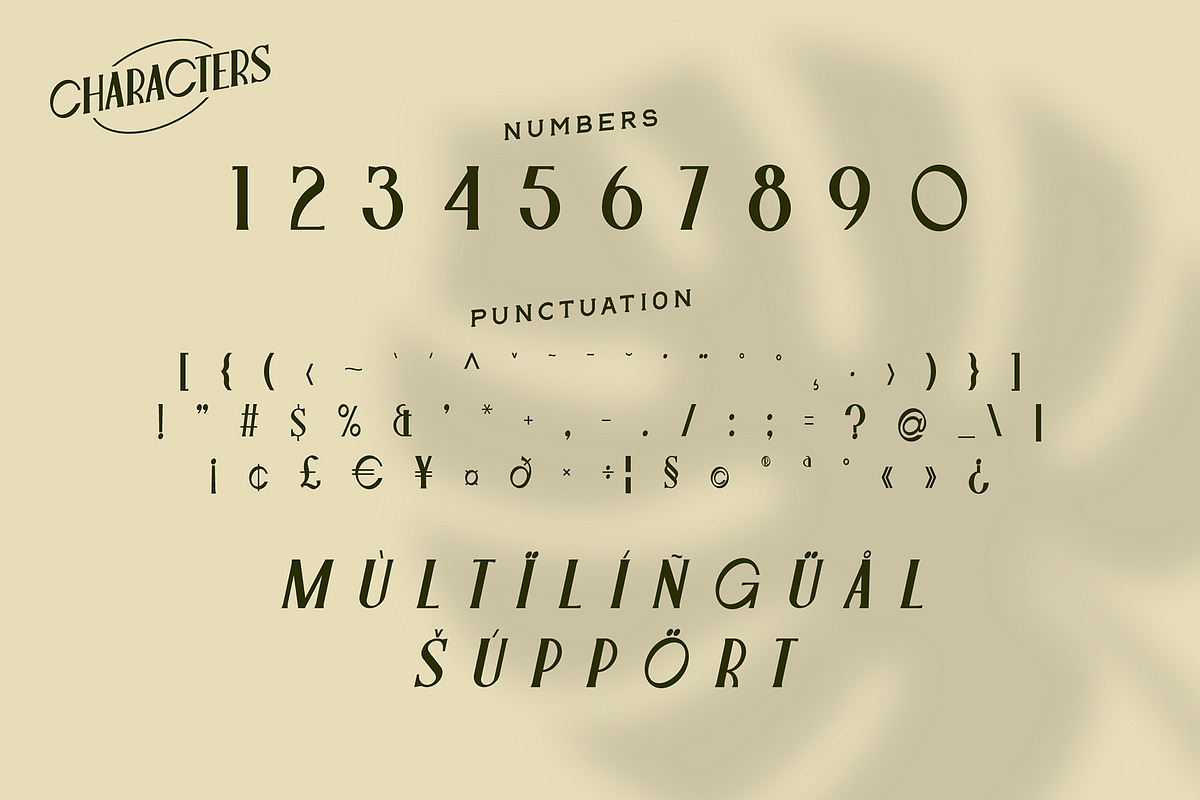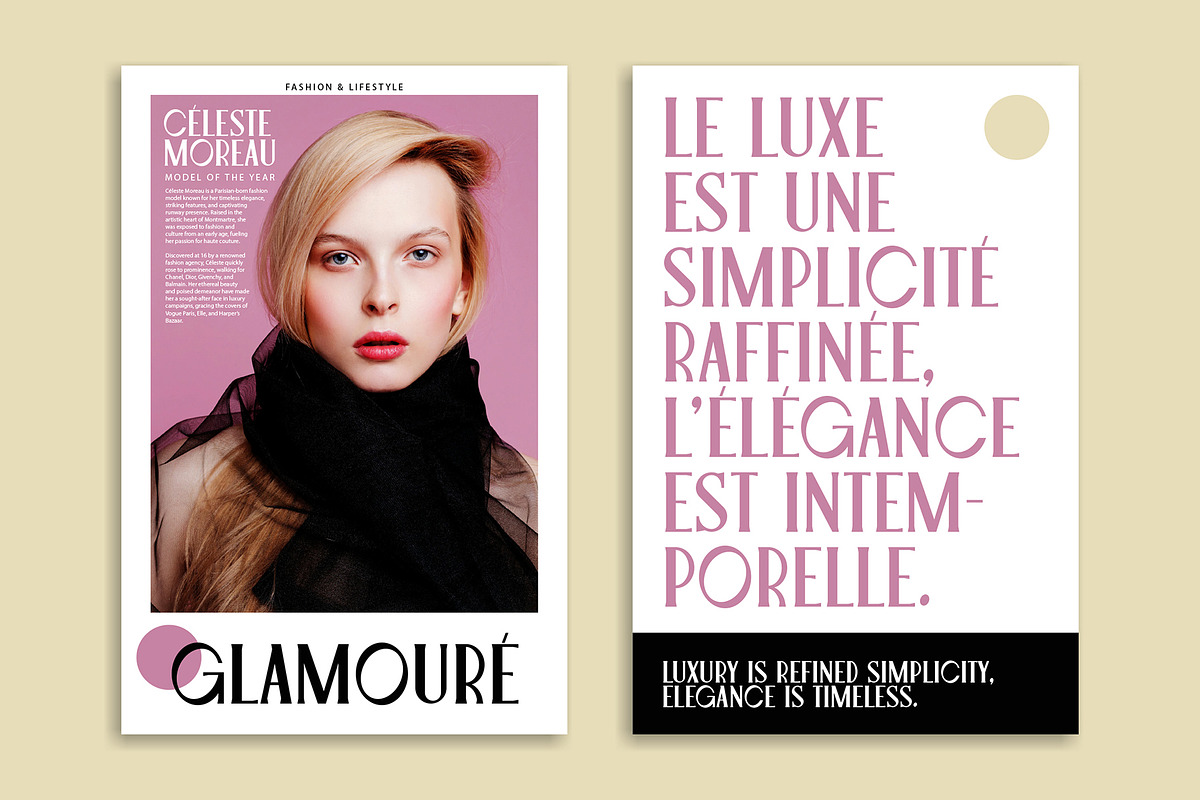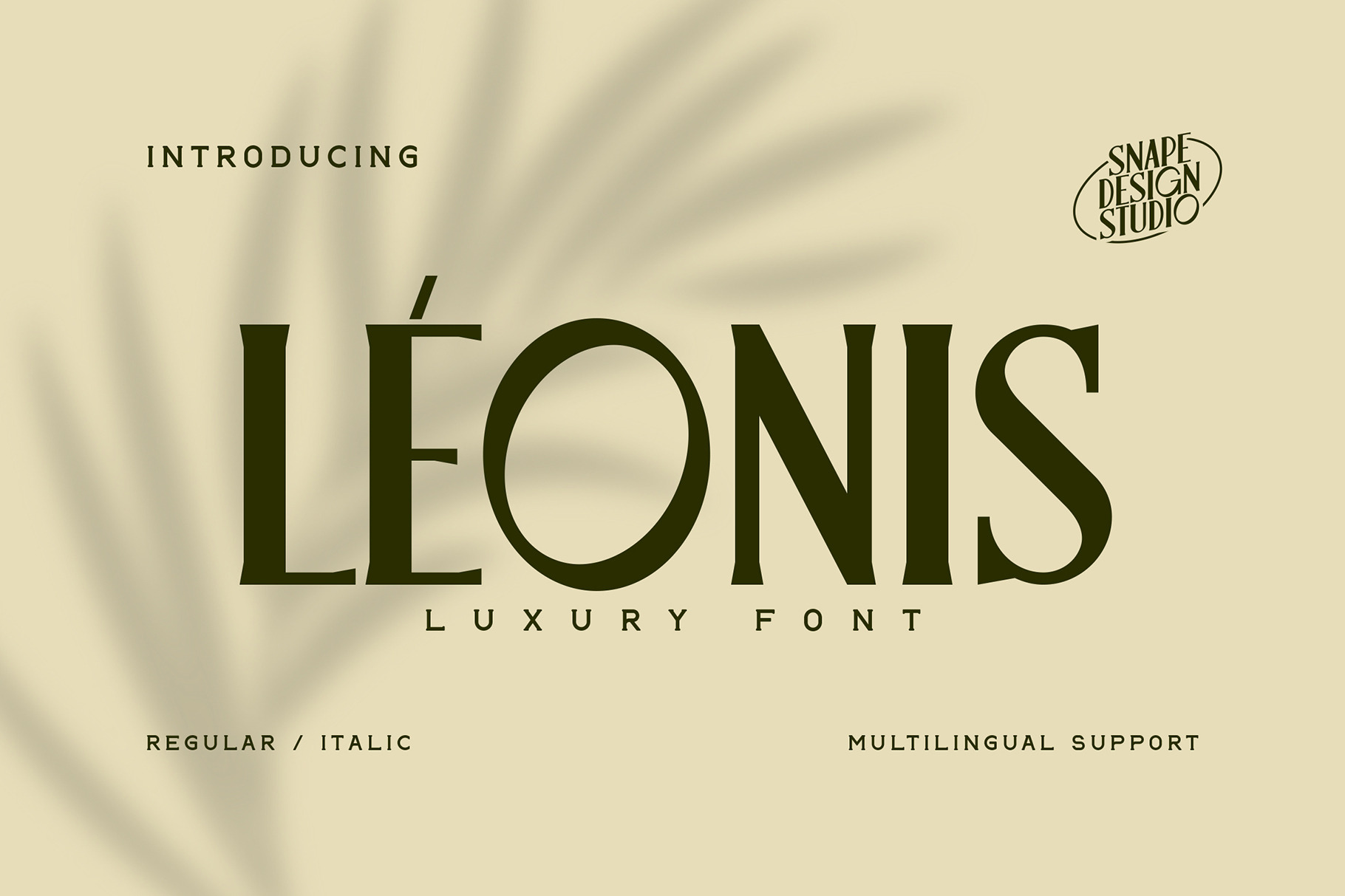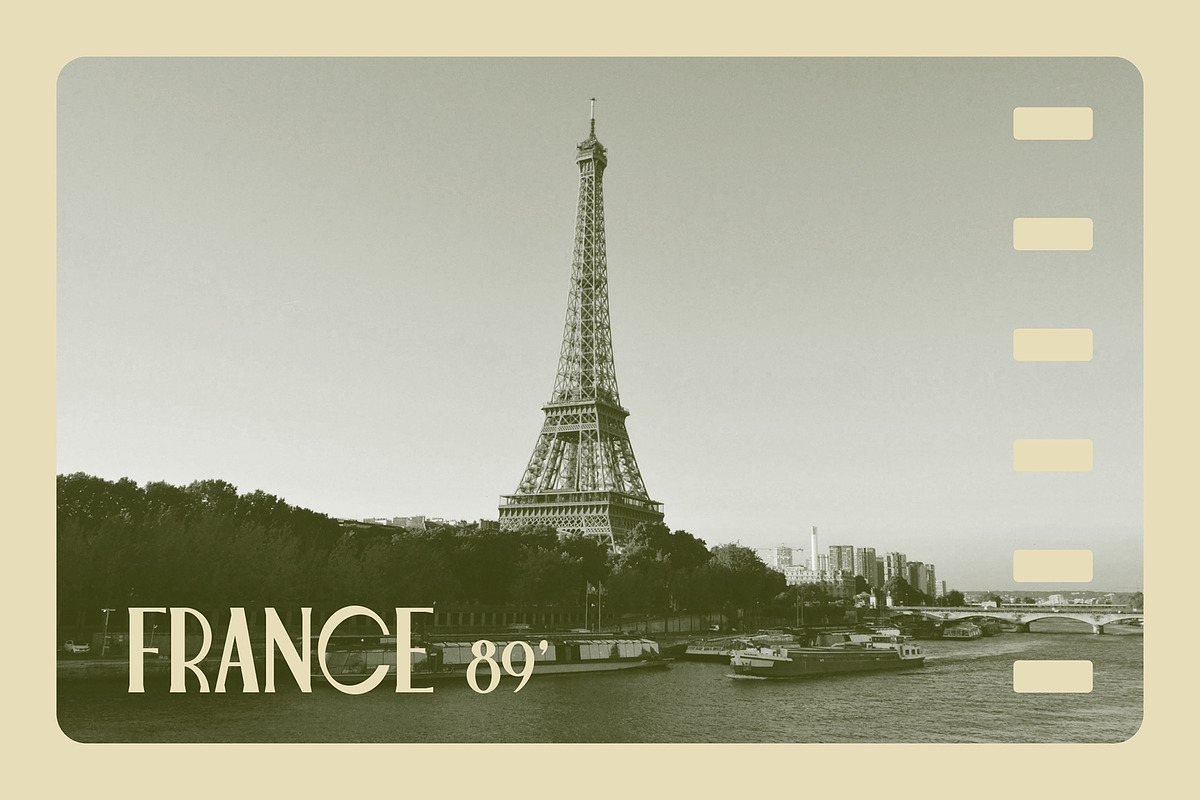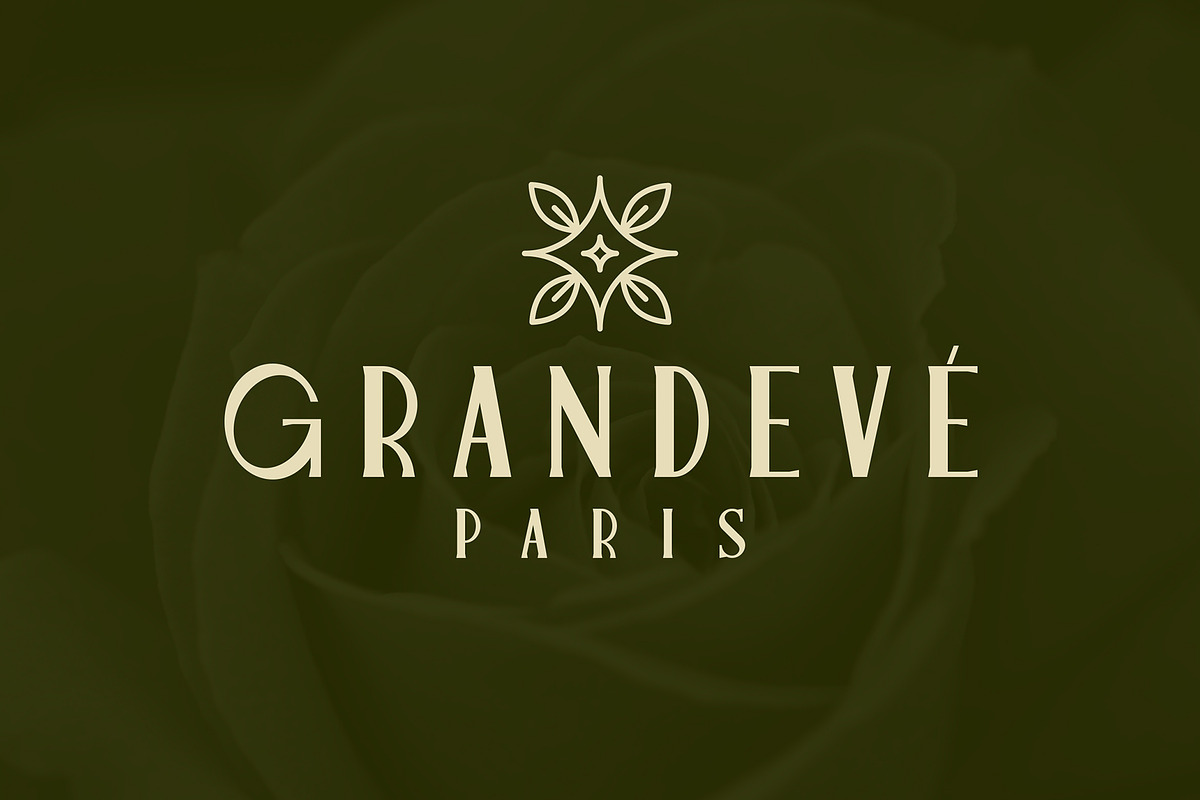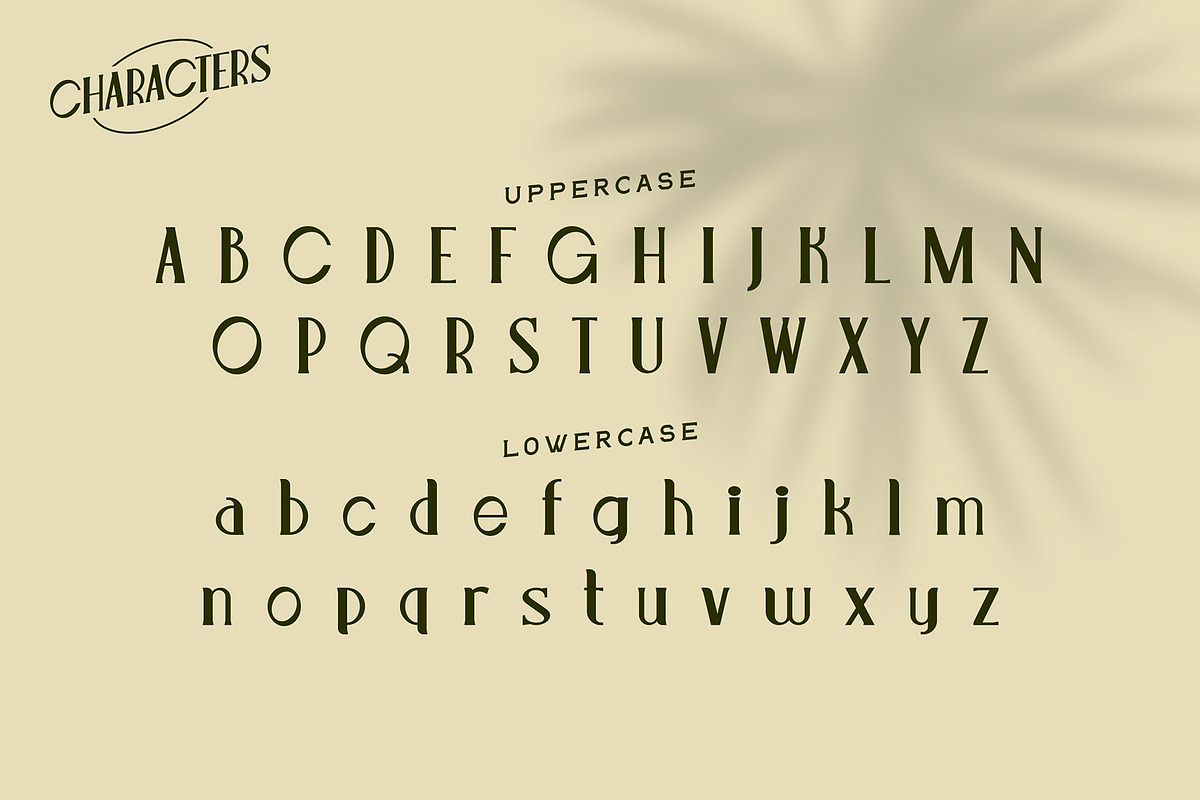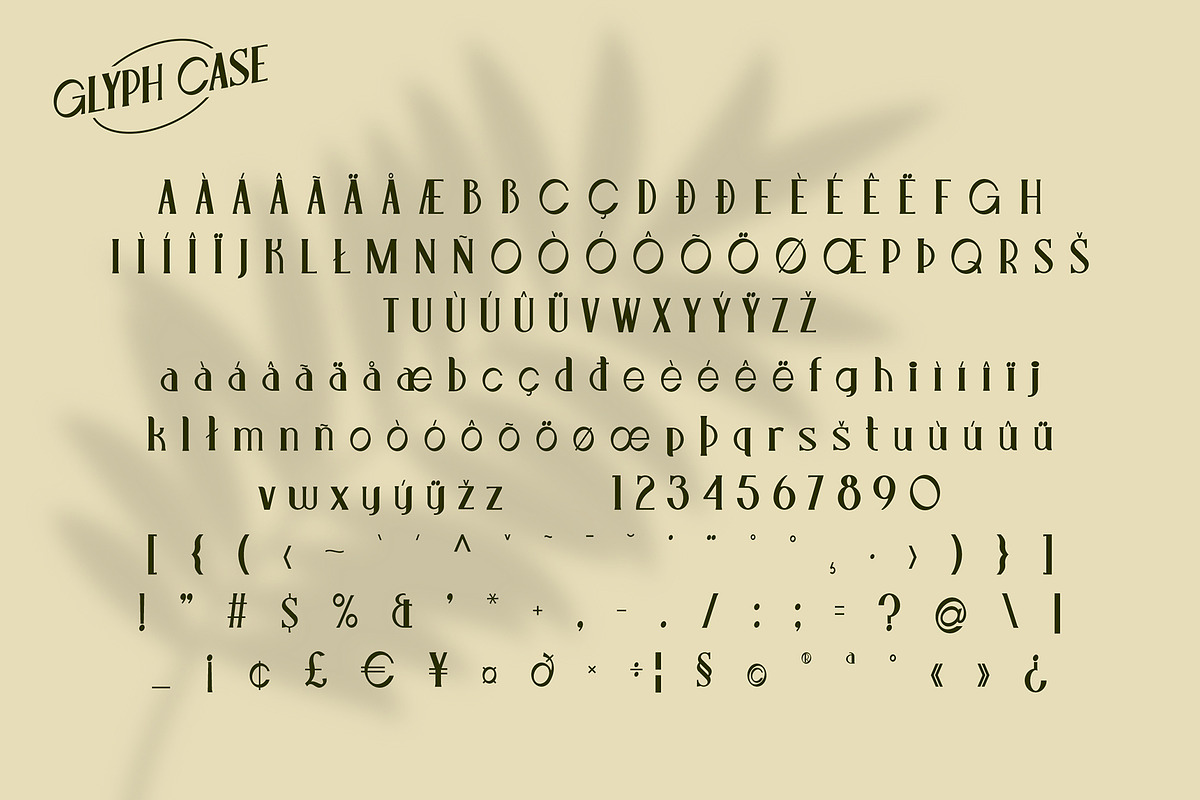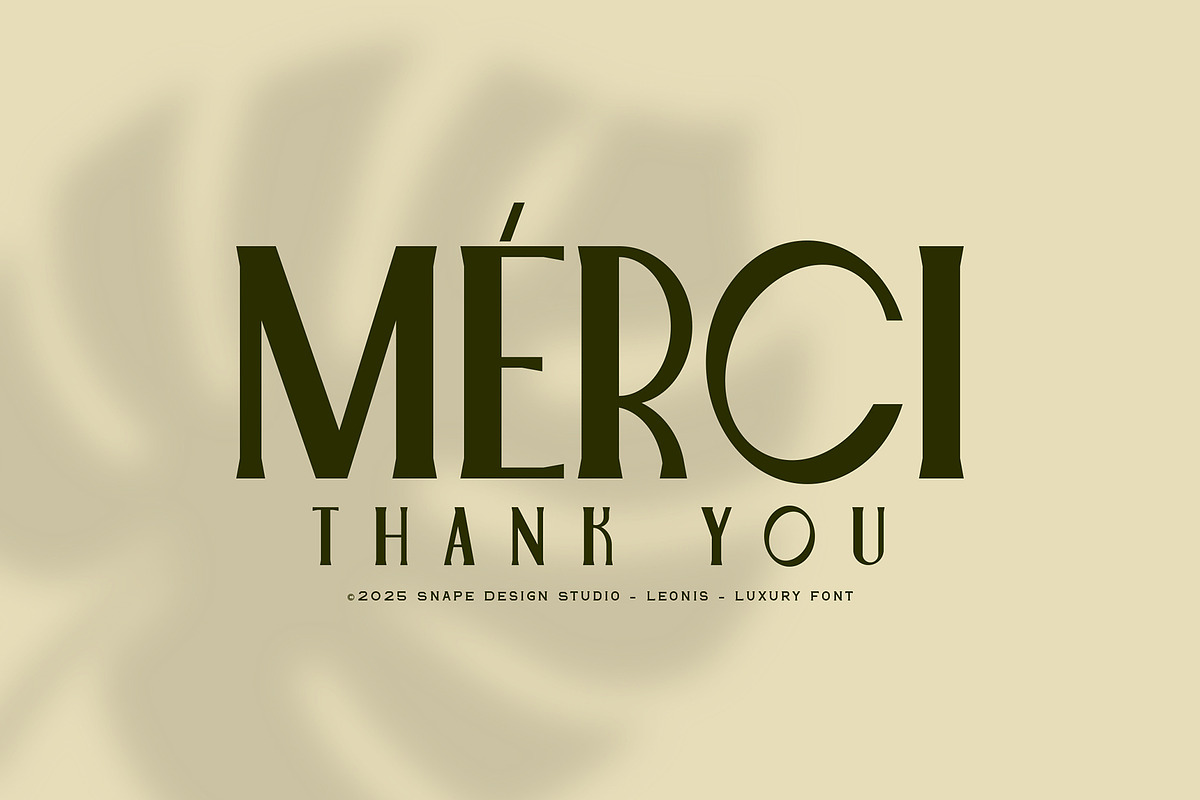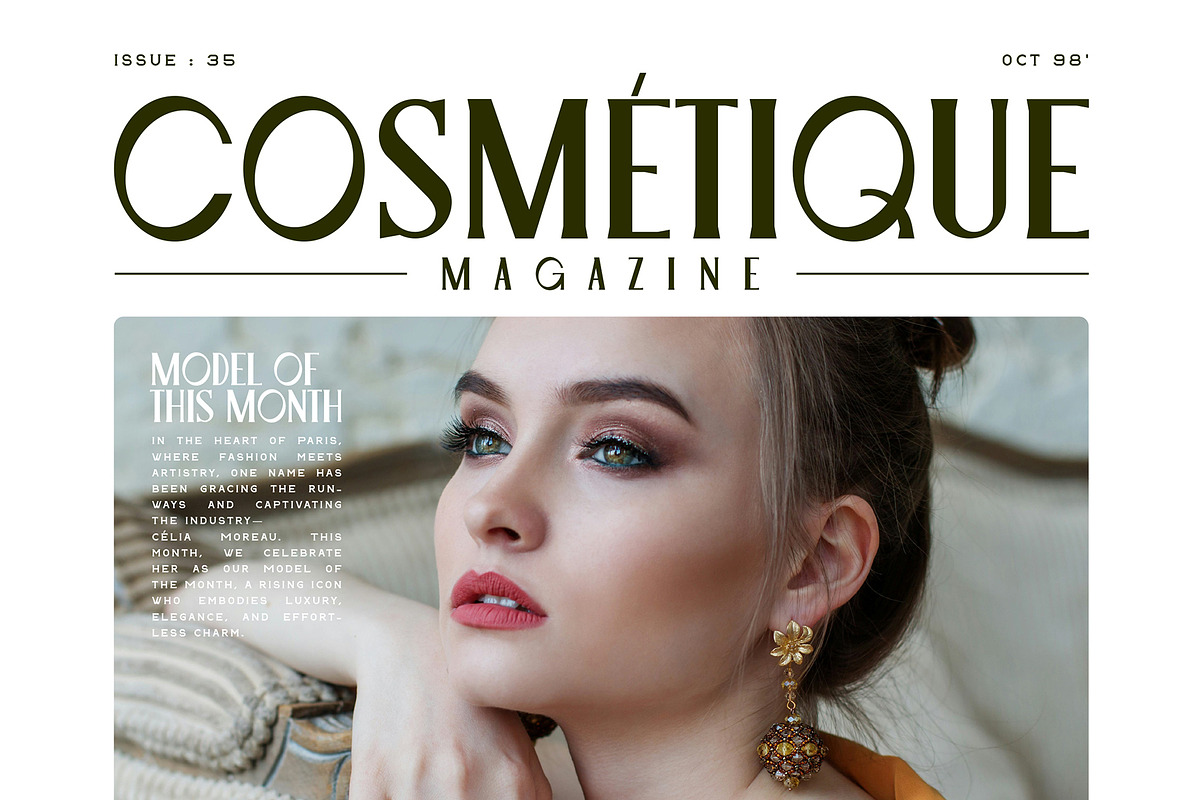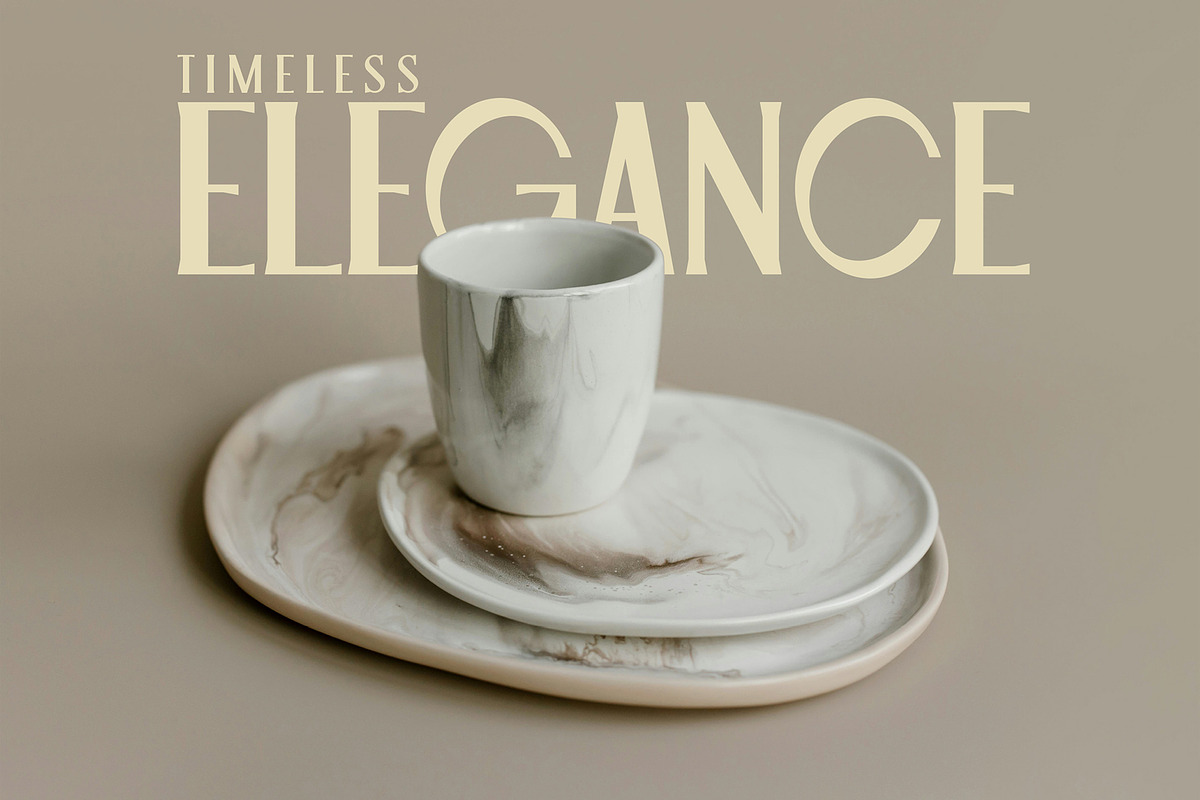
Leonis - Luxury Font
Leonis is a sophisticated serif typeface that embodies elegance and refinement. Designed with a timeless aesthetic, it features sharp, elongated serifs and a balanced contrast, making it perfect for high-end branding, editorial layouts, and luxury packaging.
This font offers both Regular and Italic styles, ensuring versatility across different design applications. With multilingual support, Leonis is ideal for global branding, upscale invitations, and premium product designs.
Elevate your typography with Leonis, where luxury meets precision.